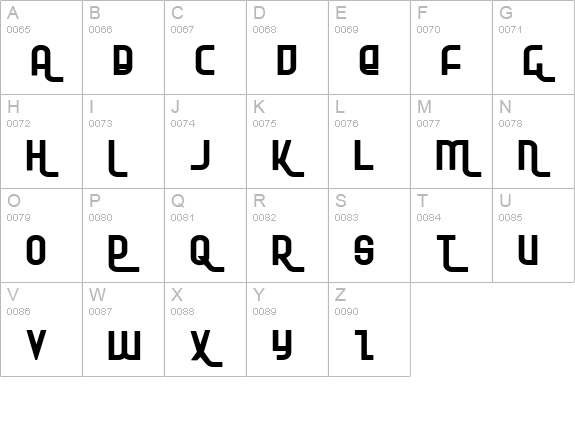
Ro'Ki'Kier Expanded is a distinctive, extended-width variant in the Ro'Ki'Kier typeface family \xE2\x80\x94 well suited to design and typography projects.
Ro'Ki'Kier Expanded is a stunning and versatile display font that exudes a sense of modern elegance and creativity. With its unique blend of sharp angles and smooth curves, this font is perfect for adding a touch of sophistication to any design project. Whether you're creating a logo, poster, or website, Ro'Ki'Kier Expanded is sure to make a bold statement. What's even better is that Ro'Ki'Kier Expanded is completely free to download at FontsMarket.com. This means you can elevate your designs without breaking the bank. Don't miss out on this opportunity to enhance your creative projects with this eye-catching font. Download Ro'Ki'Kier Expanded today and let your creativity shine!